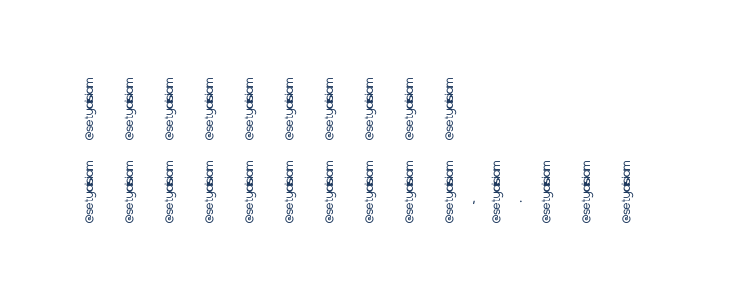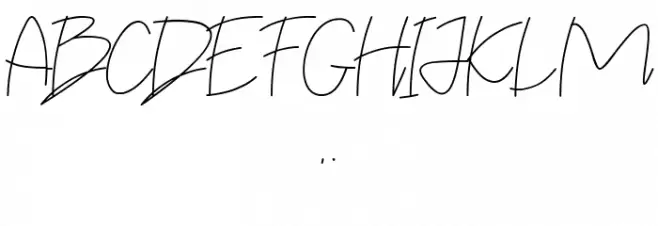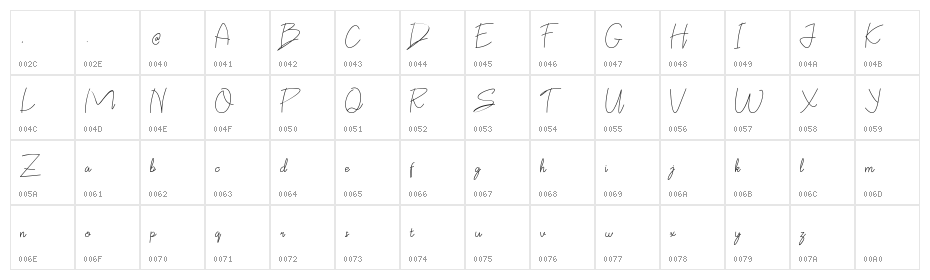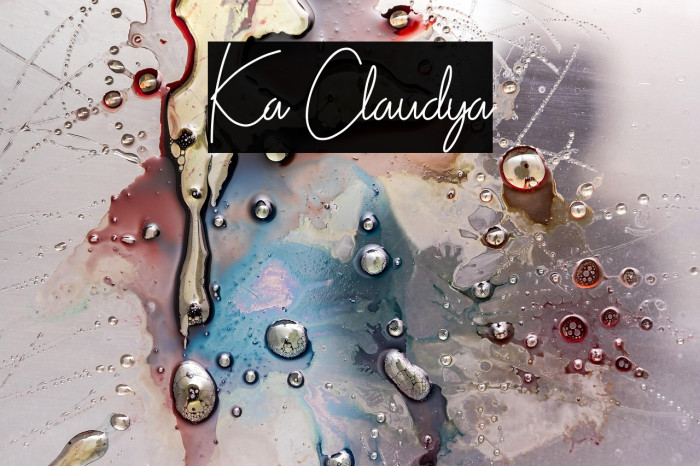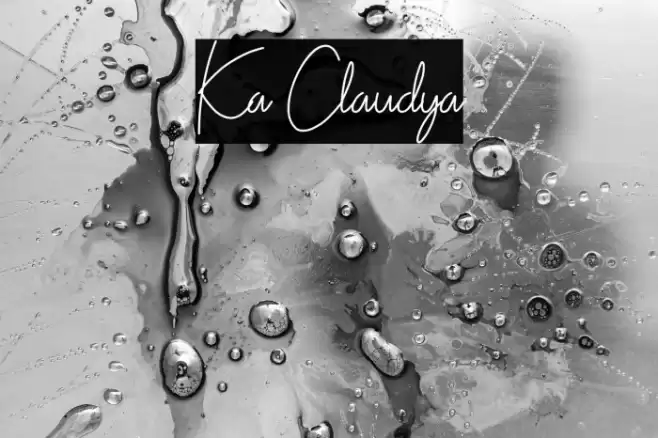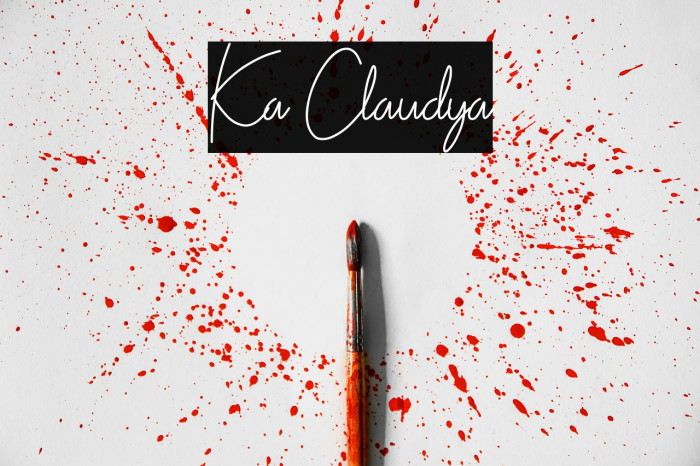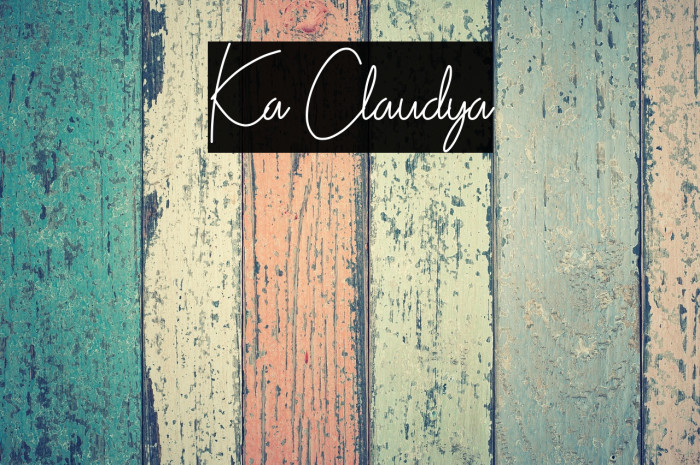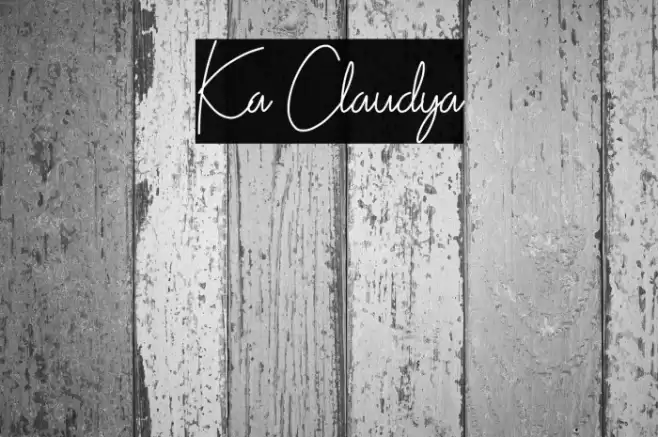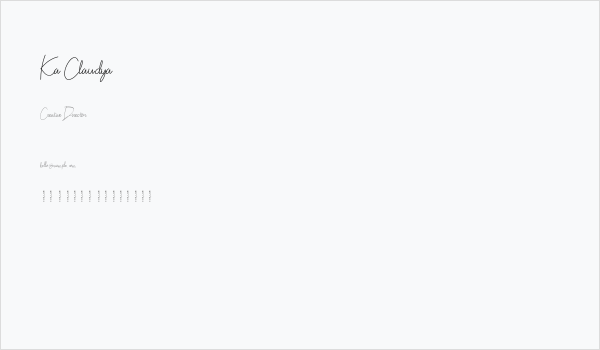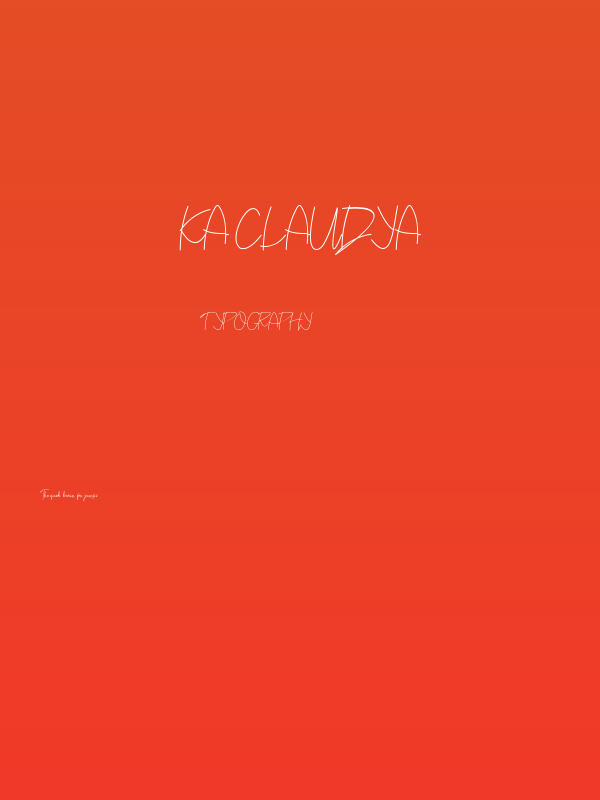
Ka Claudya Font
Ka Claudya Description
This font features a distinctive handwritten style with elongated, flowing strokes that give it a casual yet elegant appearance. The uppercase letters are tall and slightly slanted, creating a sense of movement and dynamism. The lowercase letters maintain a consistent style, with smooth curves and a natural, organic feel. The font's thin lines and airy design make it suitable for projects that require a personal touch. Its unique character is further emphasized by the playful and artistic flair in each letterform, making it ideal for creative and expressive designs.
| Proposed Projects | Ideal for wedding invitations, personal branding, greeting cards, and artistic projects. |